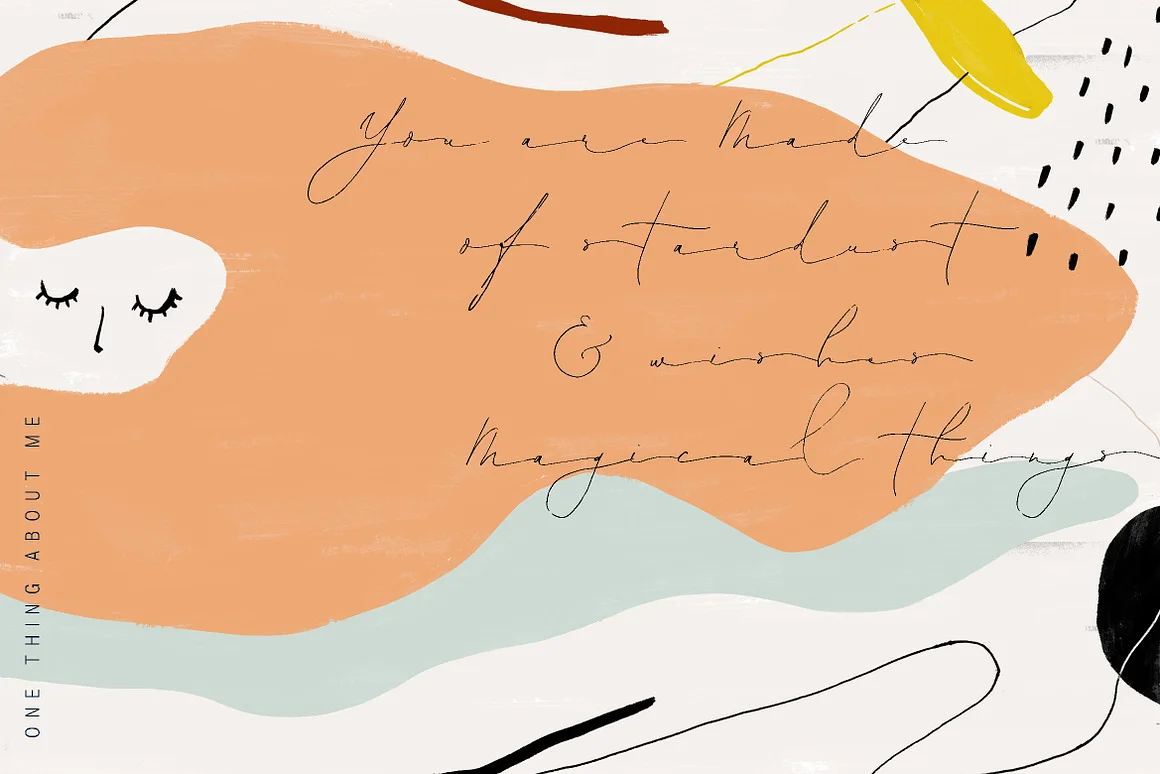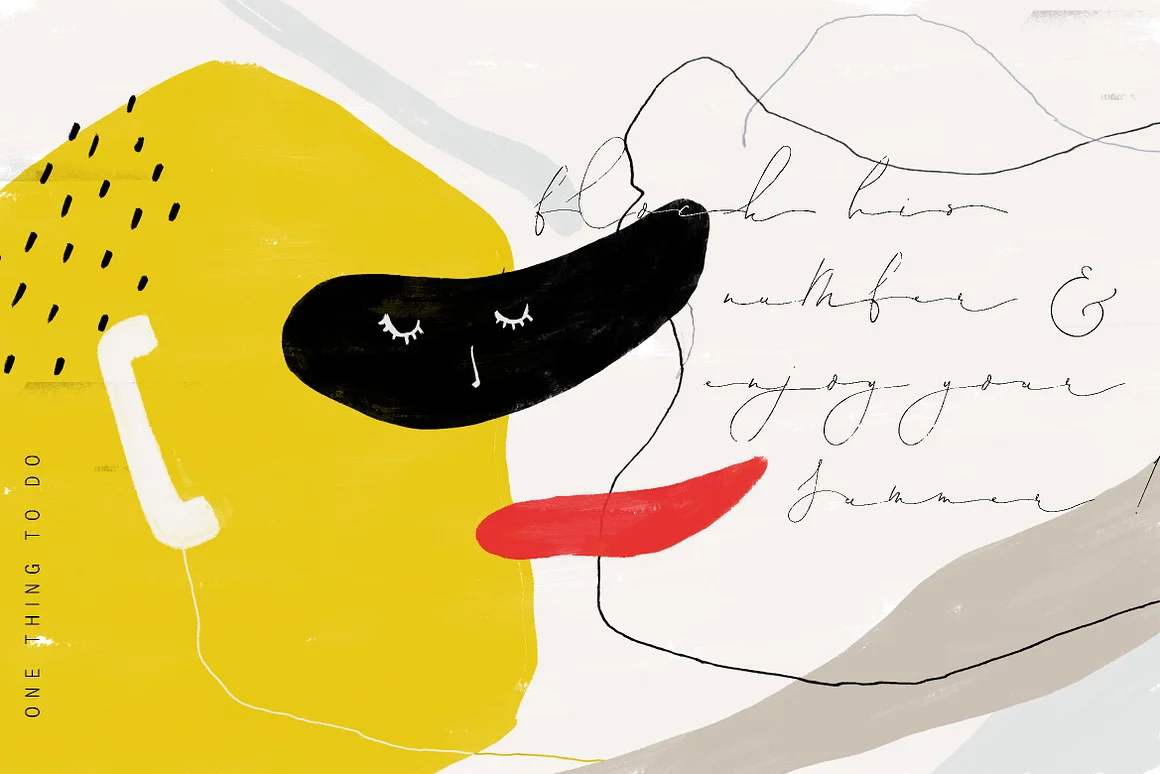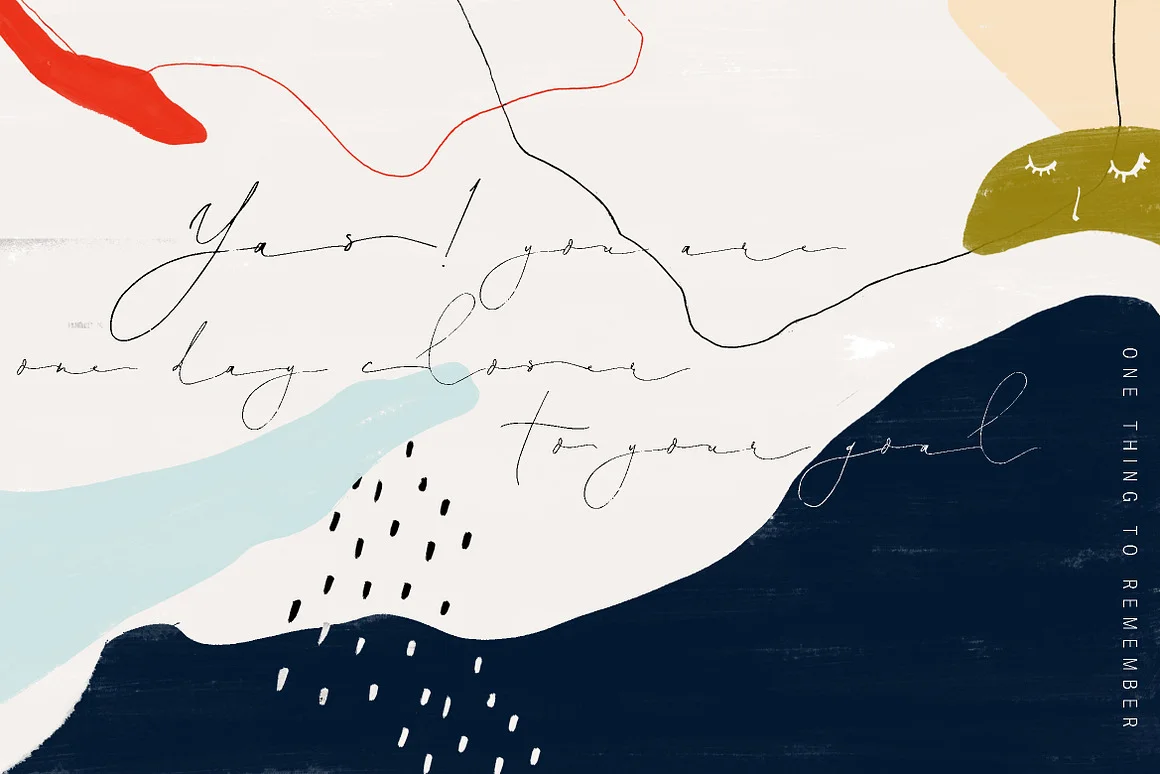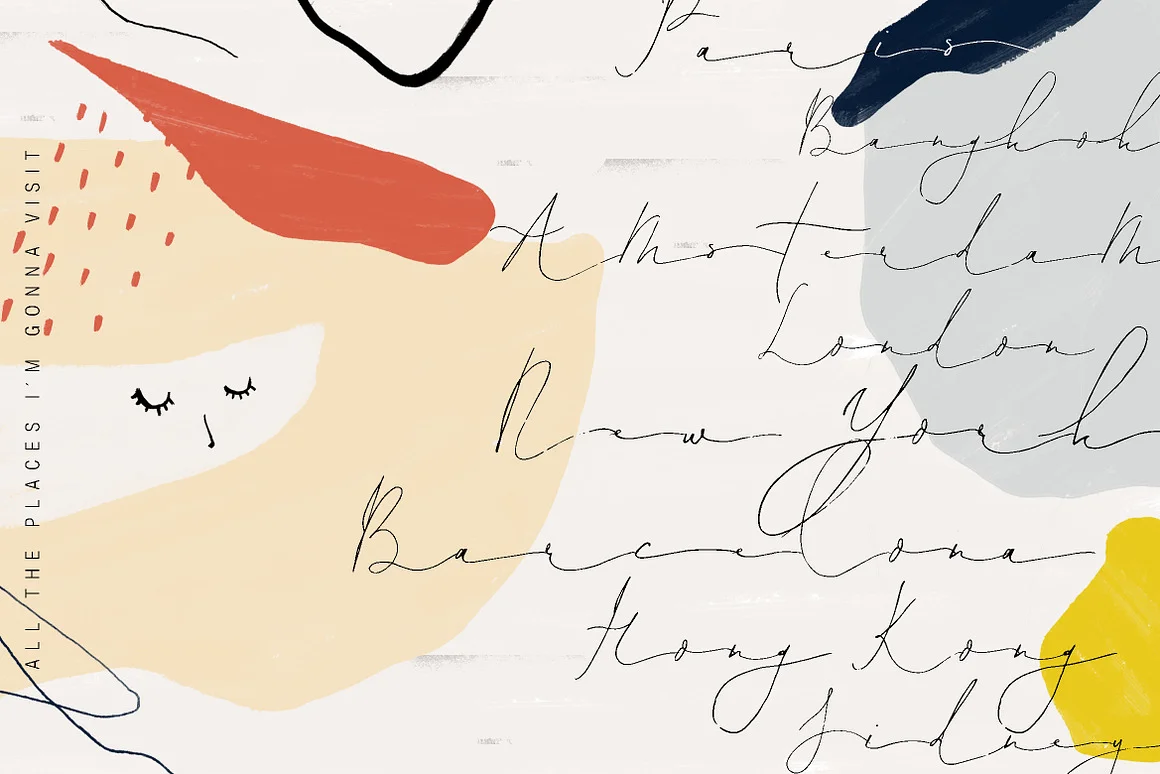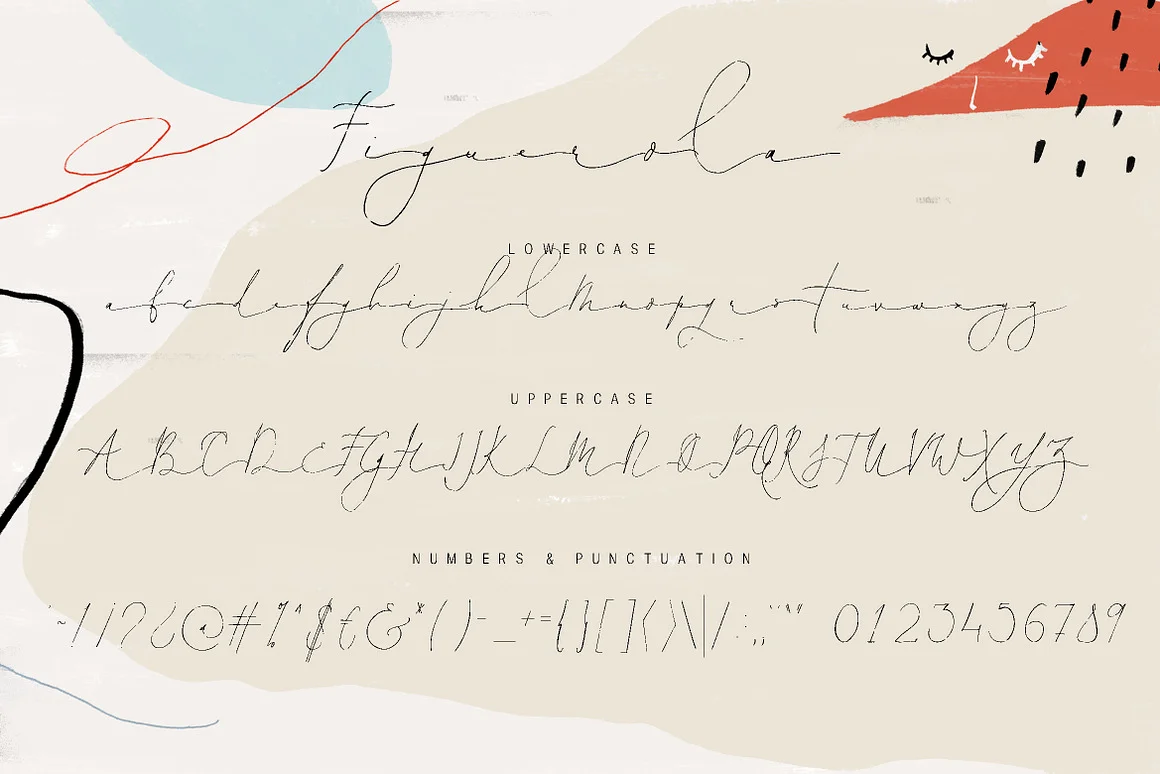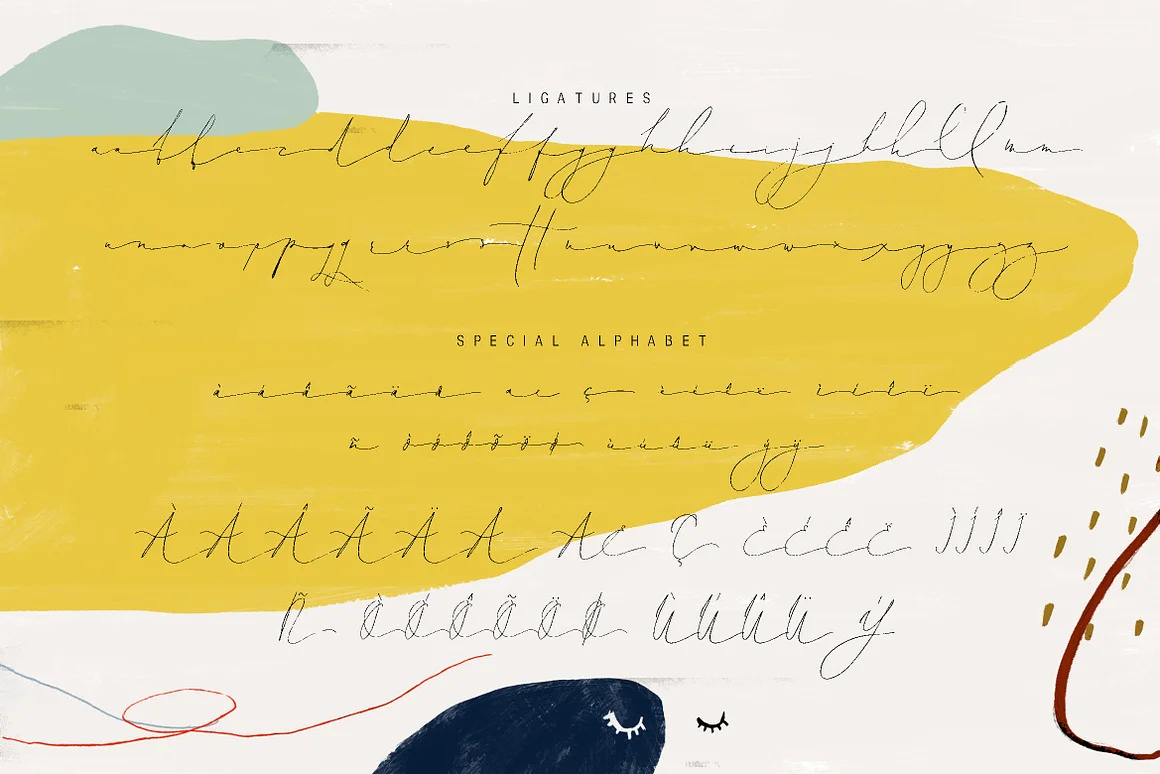
Figuerola Font
Figuerola Font is perfect for Mediterranean branding, rustic restaurant logos, artisanal food packaging, wine label design, cultural heritage projects, travel marketing materials, traditional craft branding, authentic culinary experiences, vintage poster design, and heritage tourism communications.
What makes Figuerola Font so exciting is its authentic Mediterranean character that captures the warmth and tradition of European craftsmanship while maintaining contemporary functionality. This distinctive typeface embodies cultural heritage and artisanal quality, delivering typography that tells stories of tradition, authenticity, and timeless craftsmanship.
The Figuerola Font family includes light, regular, medium, and bold weights, complete with stylistic alternates and traditional design elements that provide designers with comprehensive tools for creating authentic and memorable cultural typography that honors heritage while embracing modern design principles.
Experience Mediterranean authenticity with Figuerola Font, a masterfully crafted typeface that brings the rich cultural heritage of European tradition to contemporary design projects. This exceptional font embodies the perfect fusion of historical authenticity and modern functionality, making it an ideal choice for brands that celebrate cultural heritage and artisanal excellence.
The beautifully proportioned letterforms of Figuerola Font showcase traditional craftsmanship with cultural character that creates instant recognition of authenticity and heritage quality. Each character displays careful attention to maintaining the cultural integrity that defines traditional European typography while ensuring contemporary readability and professional versatility. The font's warm curves and traditional spacing contribute to its authentic appearance and cultural appeal.
Heritage brands and culturally-inspired businesses consistently choose Figuerola Font for projects requiring authentic character and traditional sophistication. The comprehensive character set includes uppercase and lowercase letters, numerals, extensive punctuation, international accents, and cultural decorative elements that provide complete support for heritage branding applications and traditional design compositions.
The cultural versatility of Figuerola Font ensures exceptional performance across both traditional print and modern digital platforms. Whether developing authentic brand identities, creating cultural marketing materials, or designing heritage-inspired packaging, this remarkable typeface delivers consistent authenticity that resonates with audiences seeking genuine cultural experiences and traditional quality.
Transform your cultural projects with Figuerola Font. This extraordinary typeface brings Mediterranean authenticity and cultural sophistication to typography, making it the essential choice for designers who create experiences that celebrate cultural heritage while meeting contemporary standards of design excellence.